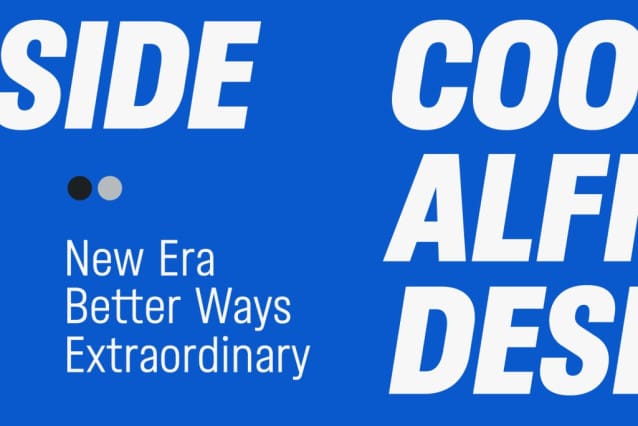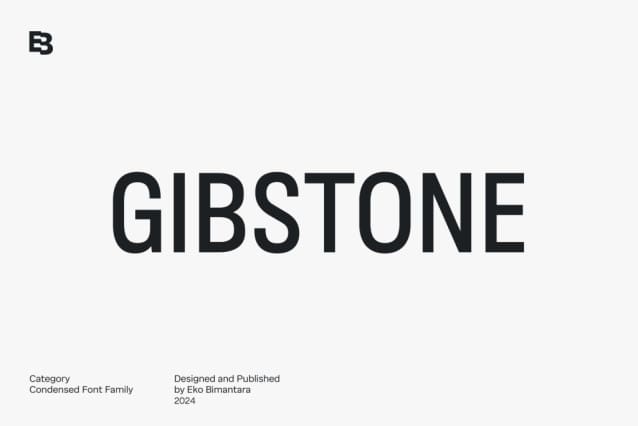
Gibstone Font Family
Gibstone Font Family, a bold statement with our latest sans-serif font. With its clean lines and modern appeal, this font is sure to turn heads and leave a lasting impression. Perfect for headlines, logos, and any design that demands attention. It is both functional and stylish, making it a versatile choice for a wide range of design projects.